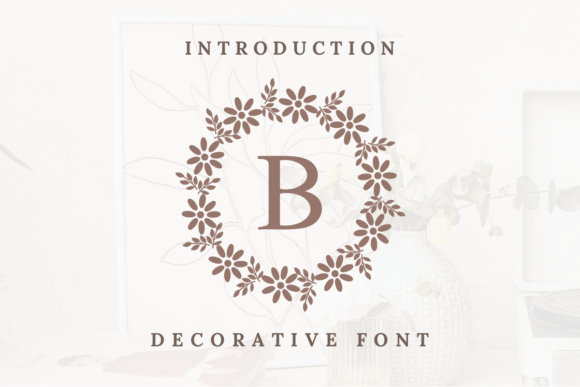
Discover the Whimsy of Batik Ristea Font
Have you ever found yourself staring at a blank canvas, waiting for inspiration to strike? You’ve tried different colors, shapes, and styles, but nothing seems to be working. It’s those moments when you need a spark to ignite your creativity and bring your design to life. That’s exactly what the Batik Ristea Font can do – add a dash of whimsy and playfulness to your work.
This fun and quirky display font is perfect for designers who want to add a touch of personality to their projects. With its unique and expressive style, Batik Ristea Font is sure to brighten up any design. Whether you’re creating a logo, social media graphics, or a brand identity, this font is a valuable addition to your toolkit. So, why not give it a try and see how it can elevate your designs?
- Unique Characteristics: The font features intricate, hand-drawn patterns and textures, giving it a distinct, artisanal look.
- Font Weight: The font has multiple weights, including Light, Regular, Medium, Bold, and Black, allowing for varying levels of emphasis.
Designer Review: Batik Ristea Font
I’ve had the chance to play around with the Batik Ristea font, and here’s my honest take.
- The font’s organic, hand-drawn feel is really unique and adds a touch of personality to any design.
- The bold and regular weights are well-designed and provide a good contrast to each other.
- The font’s relatively wide x-height makes it easy to read, especially in larger text sizes.
- The font’s aesthetic might not be to everyone’s taste, and some people might find it too busy or cluttered.
- The font’s character set is relatively limited, which might make it harder to use for more complex projects.
- The font’s spacing and kerning could be improved in certain areas to make it more consistent.
Overall, I think the Batik Ristea font is a great choice for designers who want to add some personality and whimsy to their work. While it may not be perfect, its unique feel and well-designed bold and regular weights make it a solid addition to any font collection.
Tips for Getting the Most Out of Batik Ristea Font
For optimal results, use the Batik Ristea Font in combination with other design elements that evoke a traditional or cultural feel.
Consider using the font in conjunction with images or graphics that complement its cultural significance.
The Batik Ristea Font is ideal for:
Cultural or traditional-themed designs.
Travel or tourism-related projects.
Artistic or creative projects that require a unique font style.